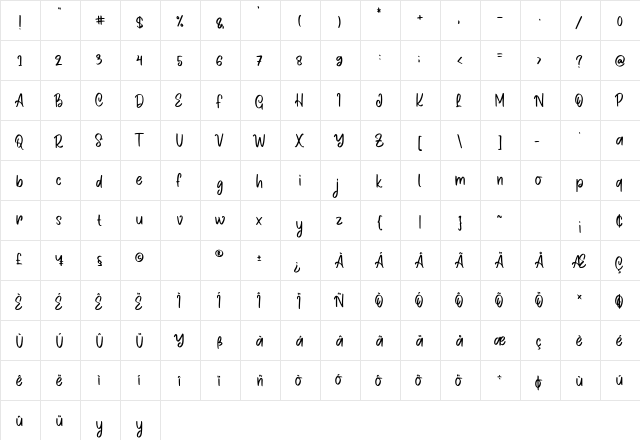
Ordinary Font Regular
| Designer | Ghazi Humam Fauzan |
Design Context for Ordinary Font Typeface
Ordinary Font is a composed and adaptable typeface that performs quietly and consistently across a wide range of design contexts.